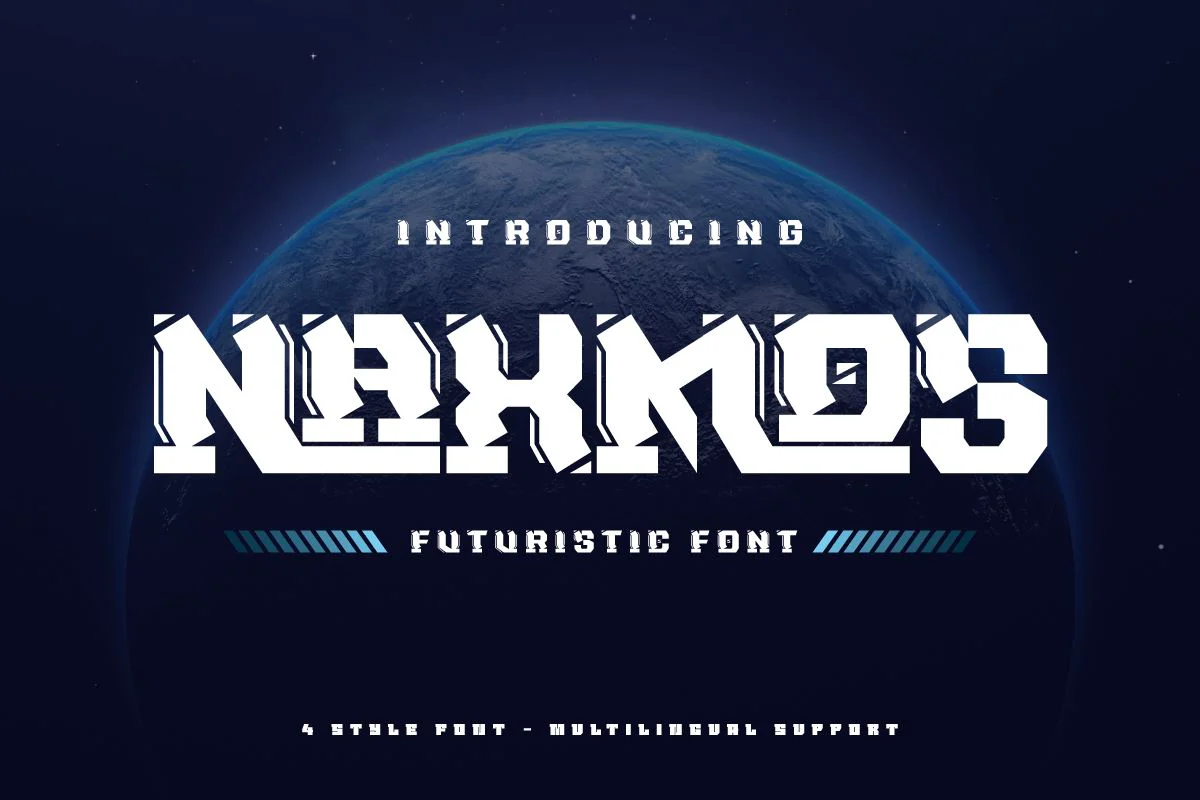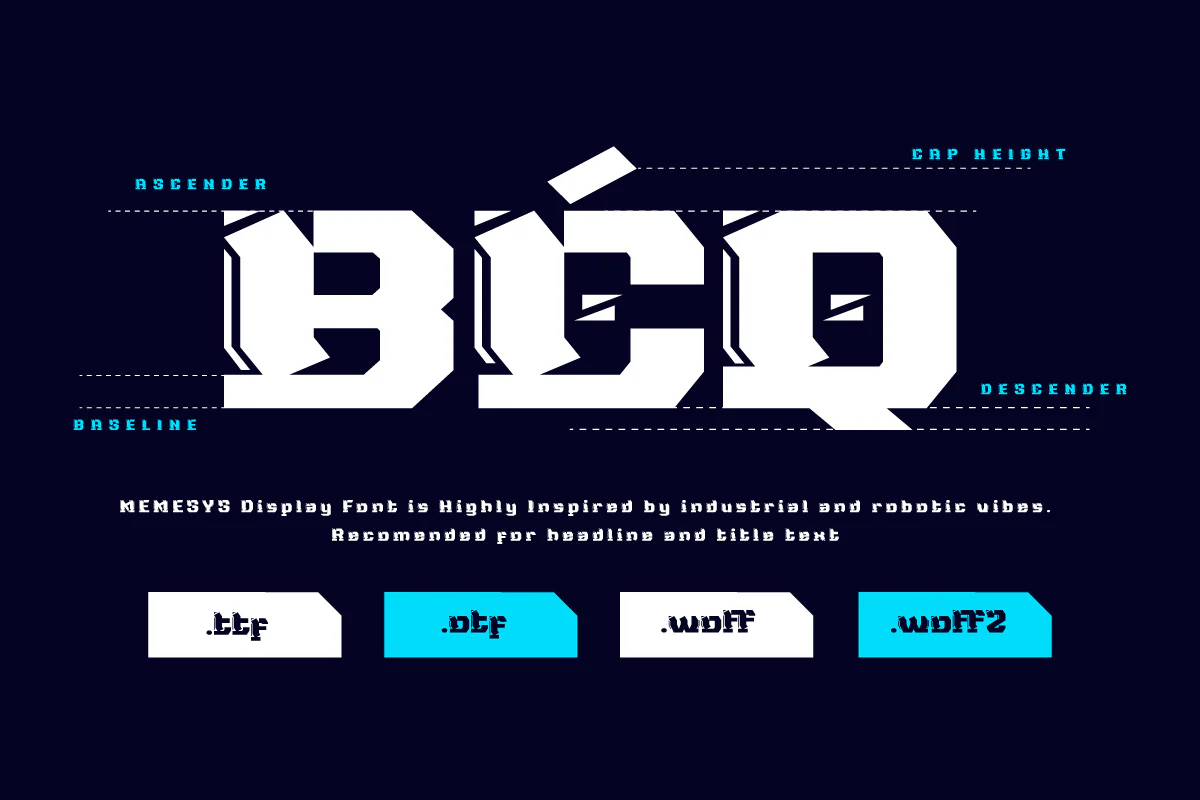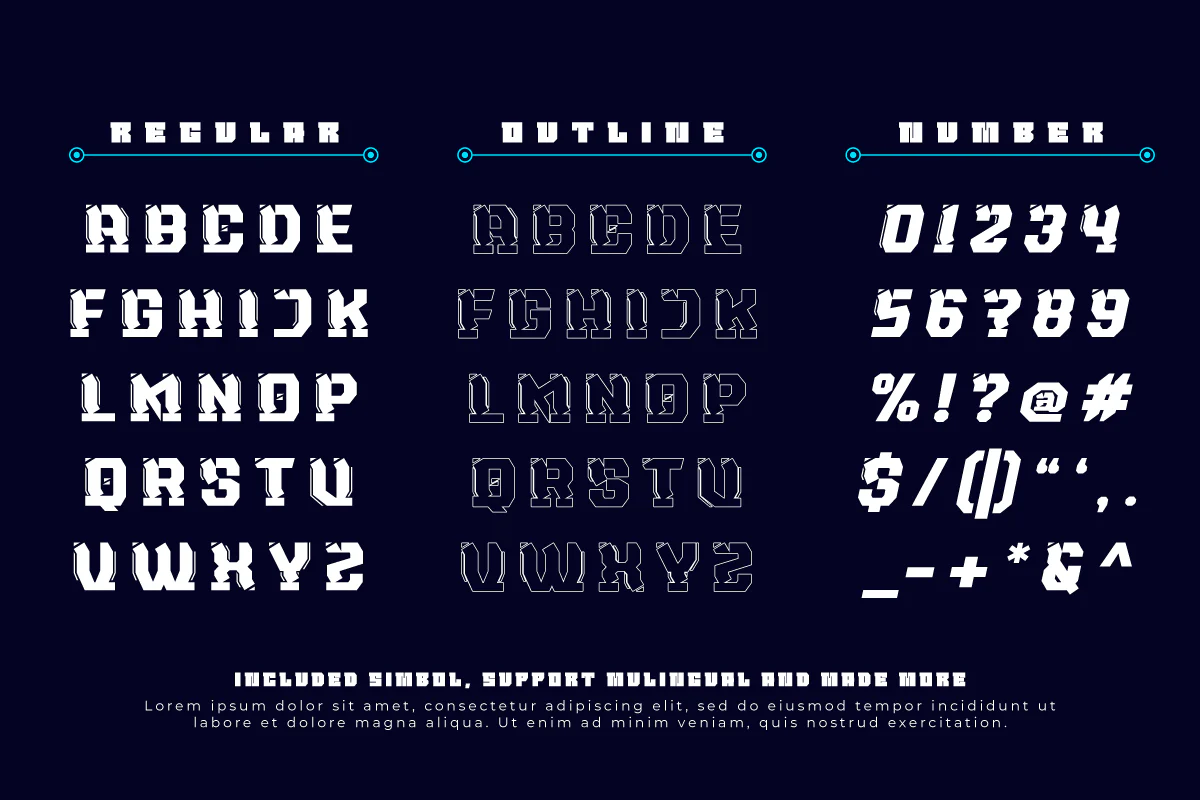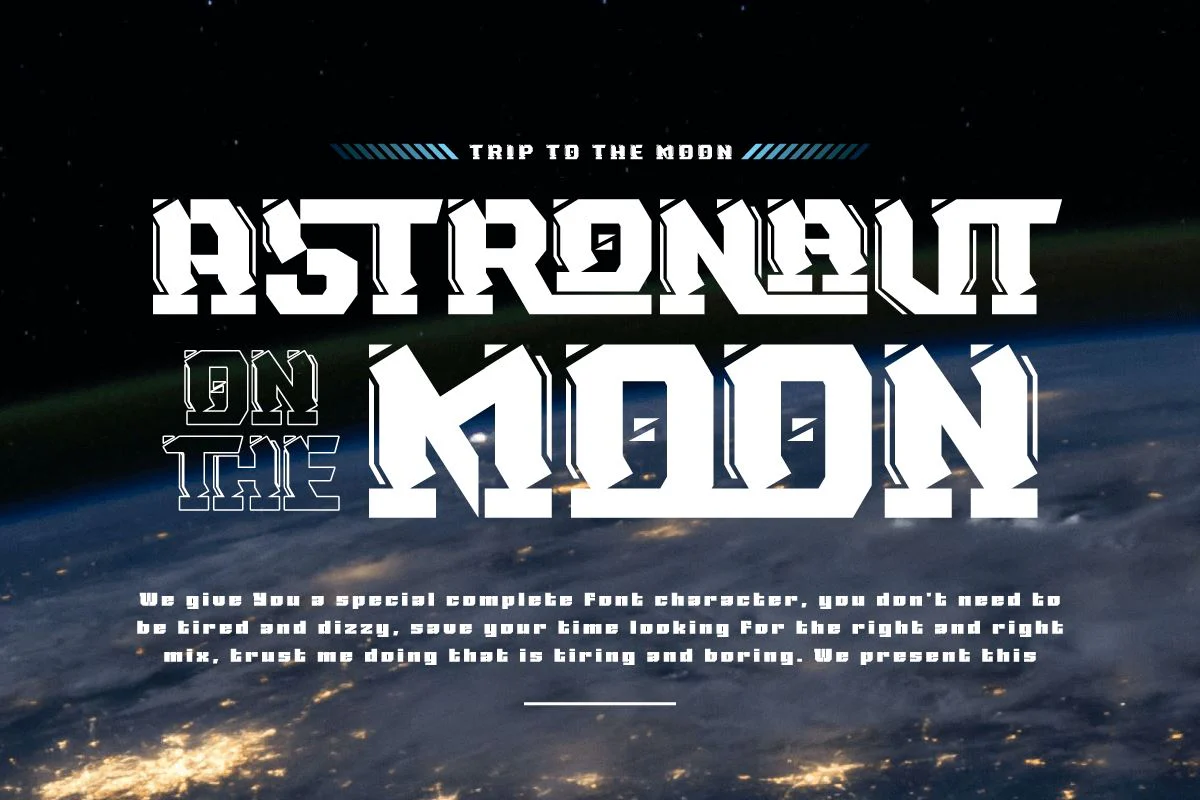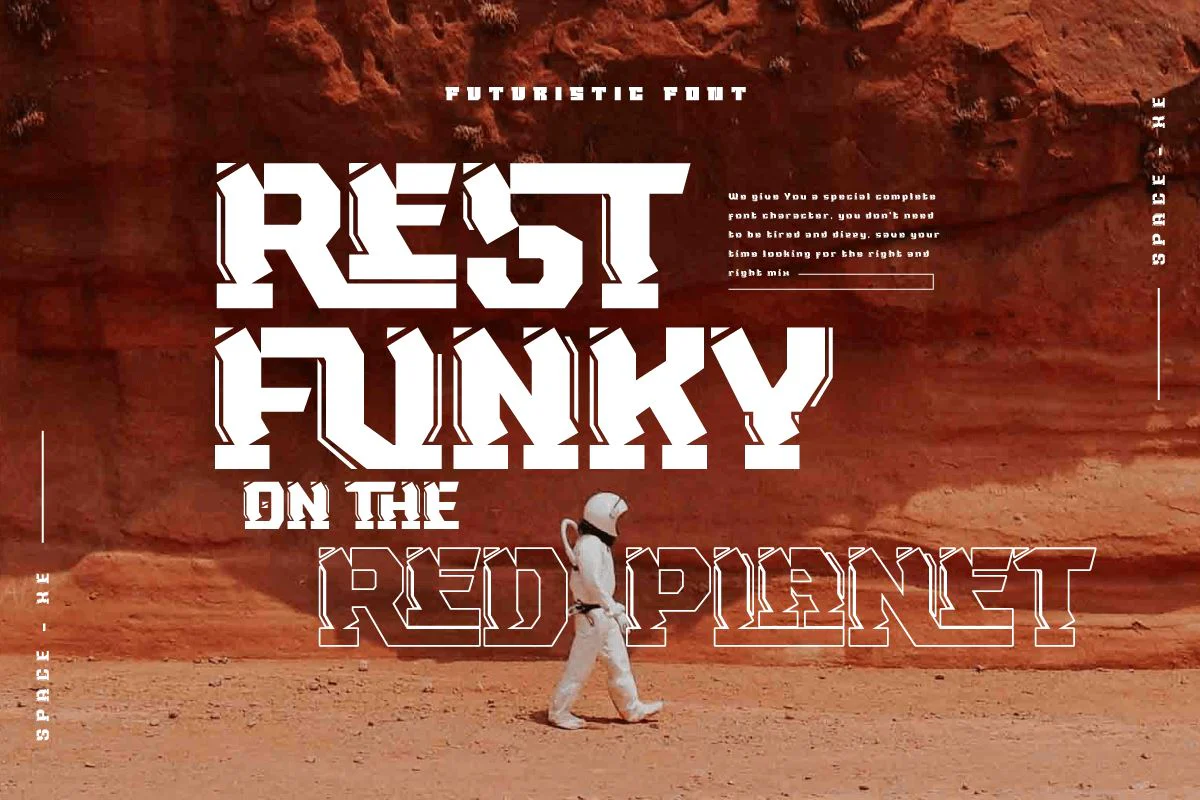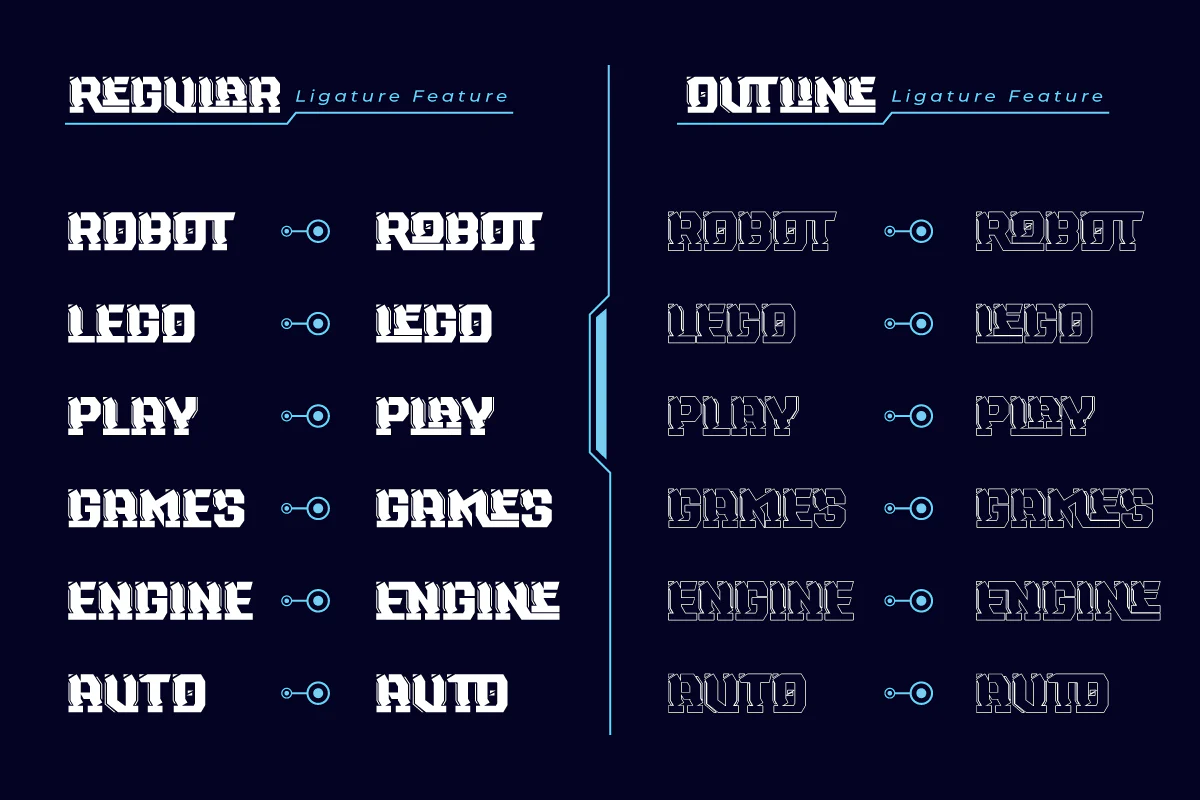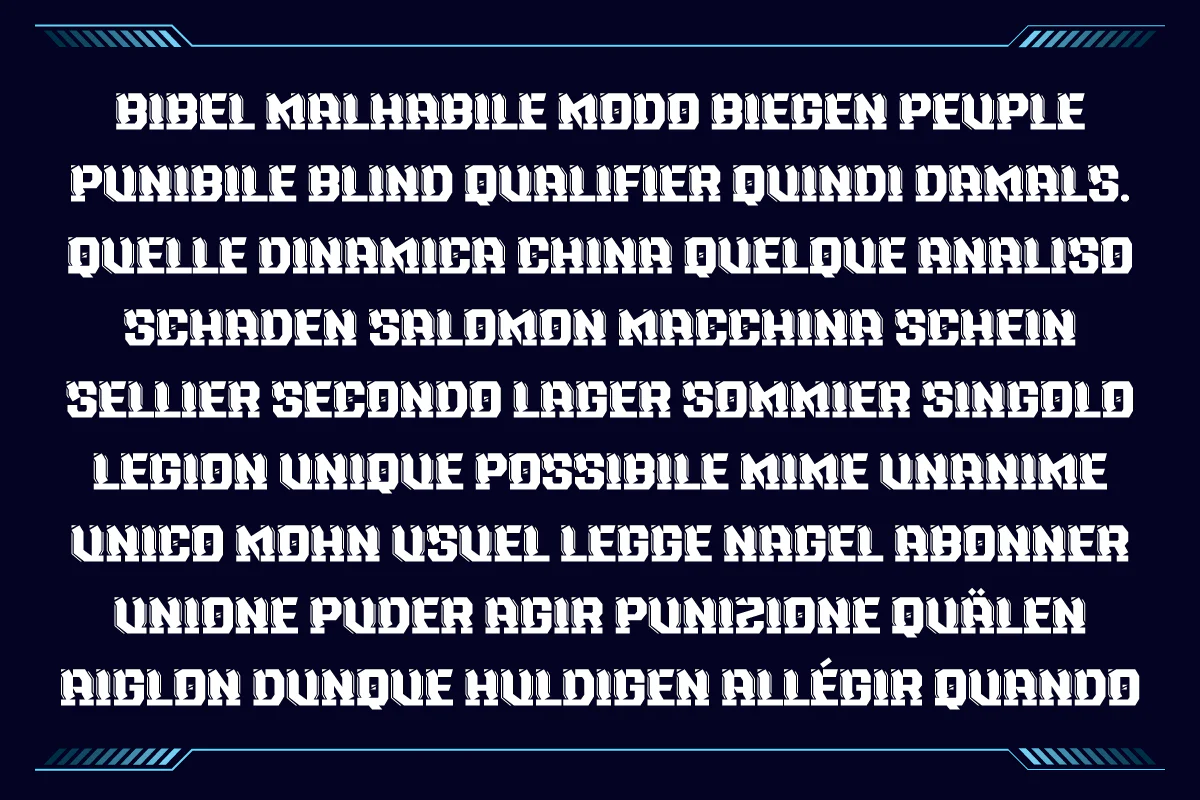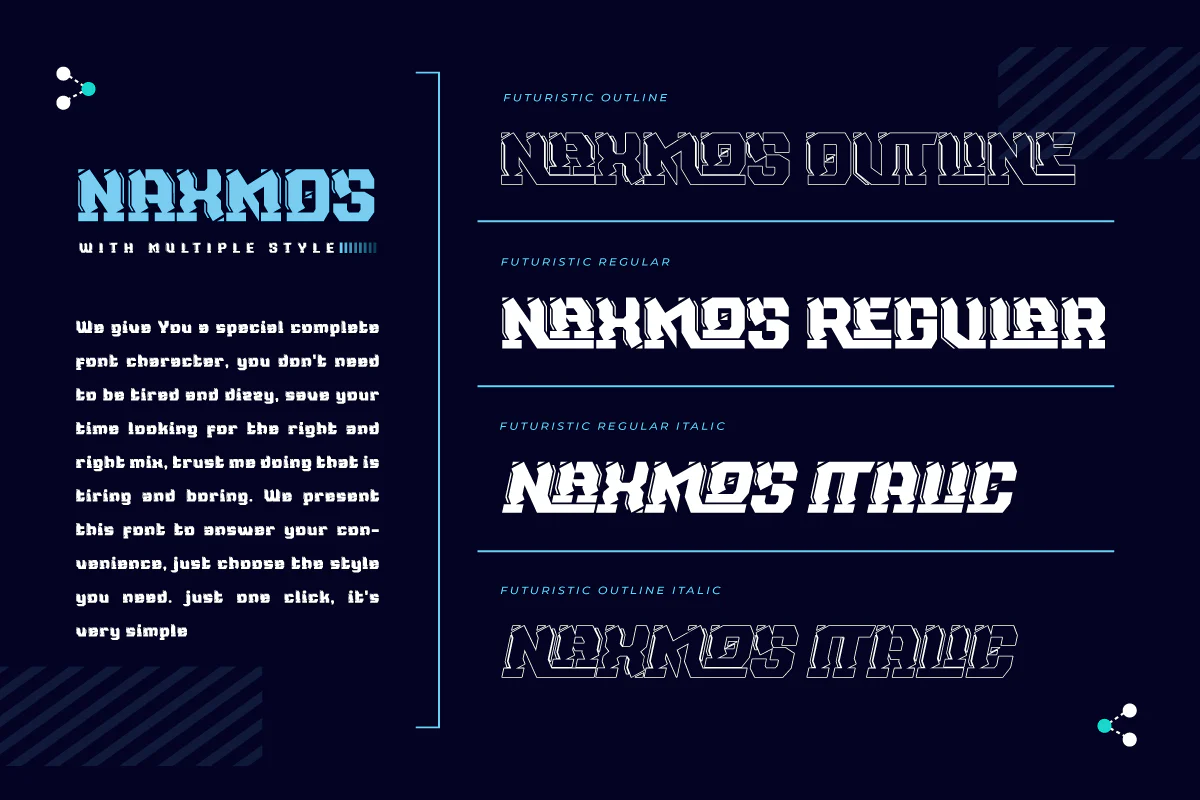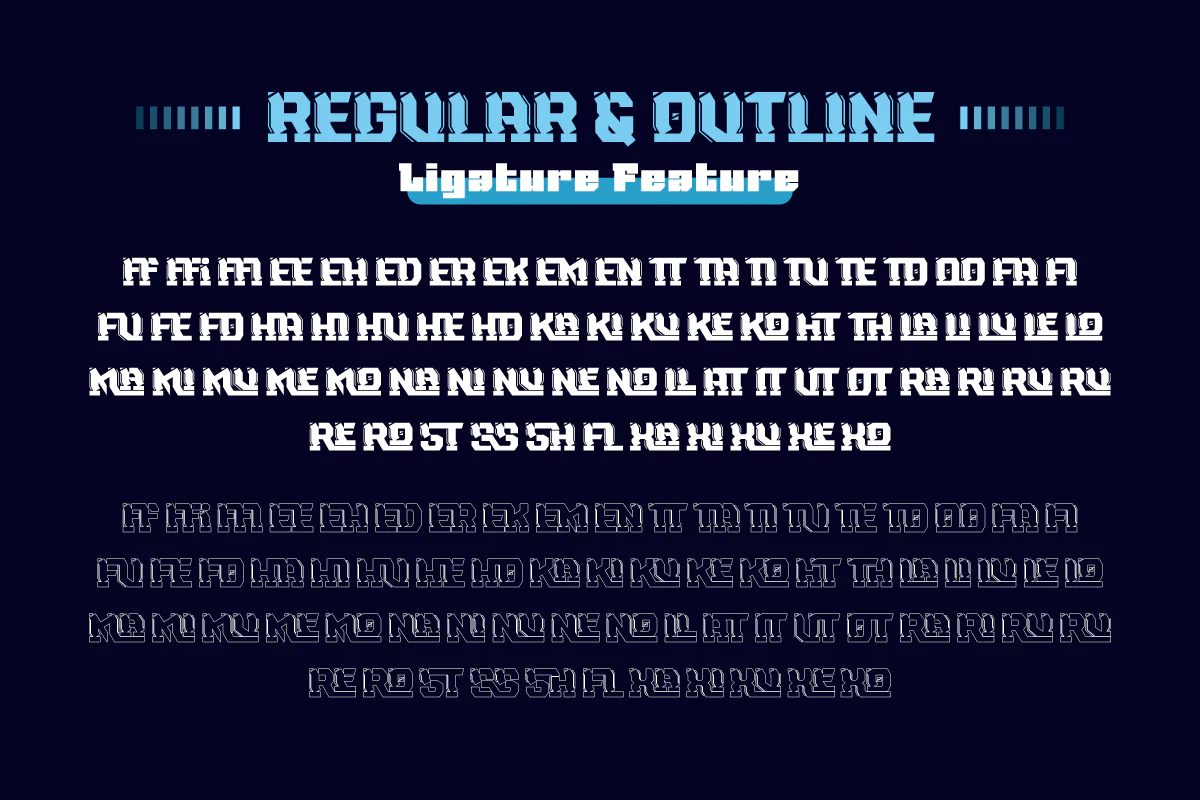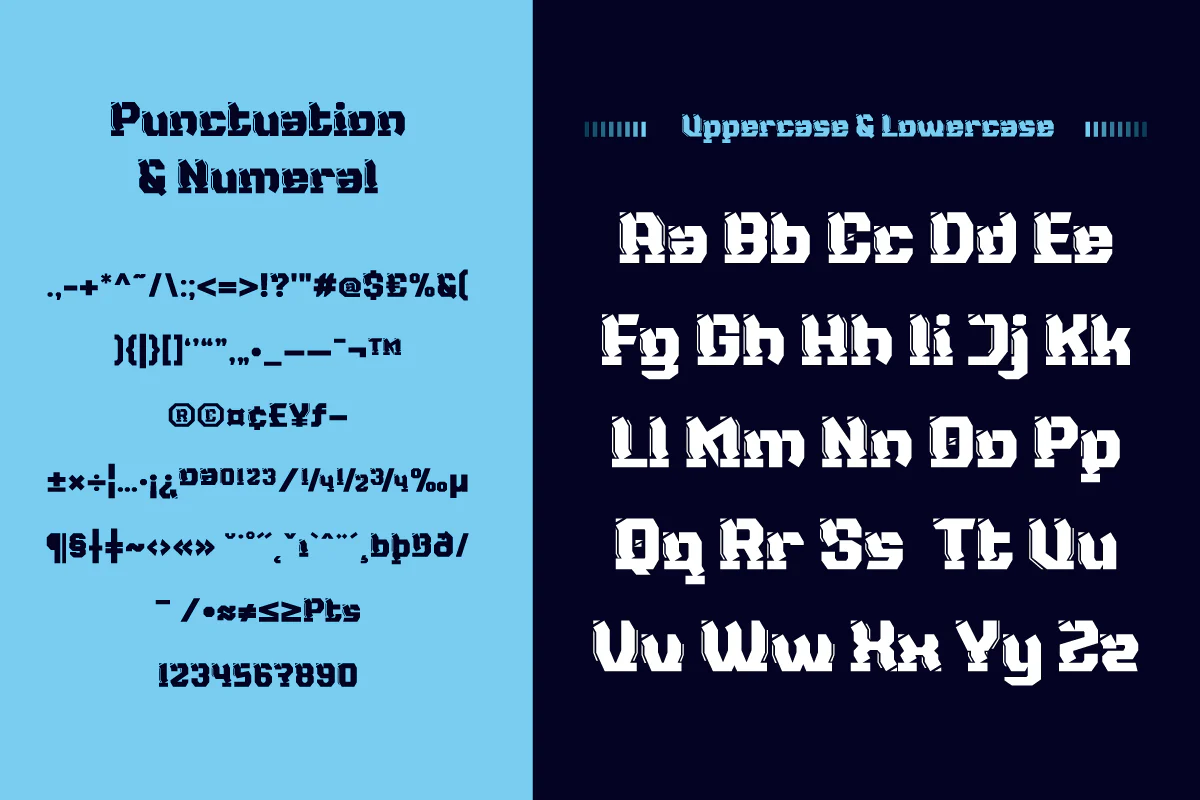
NAXMOS | Futuristic Font
Naxmos is a futuristic font with upper- and lowercase letters, a set of numbers, and a galaxy alternative and cyberpunk theme. It has a distinctive futuristic design. Use it to create time-traveling movie posters for futuristic or extraterrestrial productions. Fantastic for creating unique cards and artwork for science fiction fans.
This font was created to be used for universal events like game competitions, wall advertisements, and poster designs. Your design can look better with a simple combination. Purchase it right away to enjoy using it ahead of the competition.
Naxmos is a futuristic font with upper- and lowercase letters, a set of numbers, and a galaxy alternative and cyberpunk theme. It has a distinctive futuristic design. Use it to create time-traveling movie posters for futuristic or extraterrestrial productions. Fantastic for creating unique cards and artwork for science fiction fans.
This font was created to be used for universal events like game competitions, wall advertisements, and poster designs. Your design can look better with a simple combination. Purchase it right away to enjoy using it ahead of the competition.